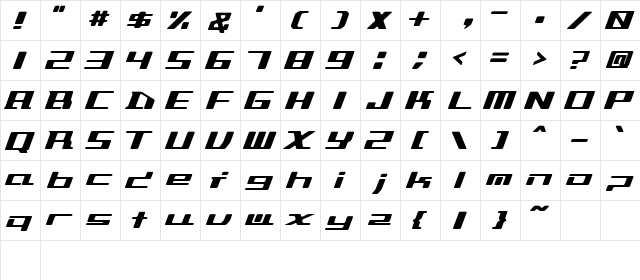
Jetliner Italic
Design Context for Jetliner Typeface
Jetliner is a composed and adaptable typeface that performs quietly and consistently across a wide range of design contexts. The dynamic lean of this cut emphasises speed and emphasis in any layout.
Pro Tip: Try Jetliner for annotation and caption copy alongside an upright companion — the contrast in angle creates a dynamic but ordered typographic system.